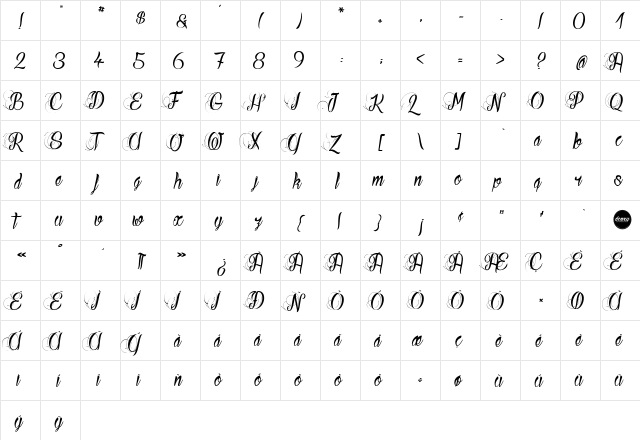
Your Fear Regular
Design Context for Your Fear Typeface
Your Fear is a composed and adaptable typeface that performs quietly and consistently across a wide range of design contexts.